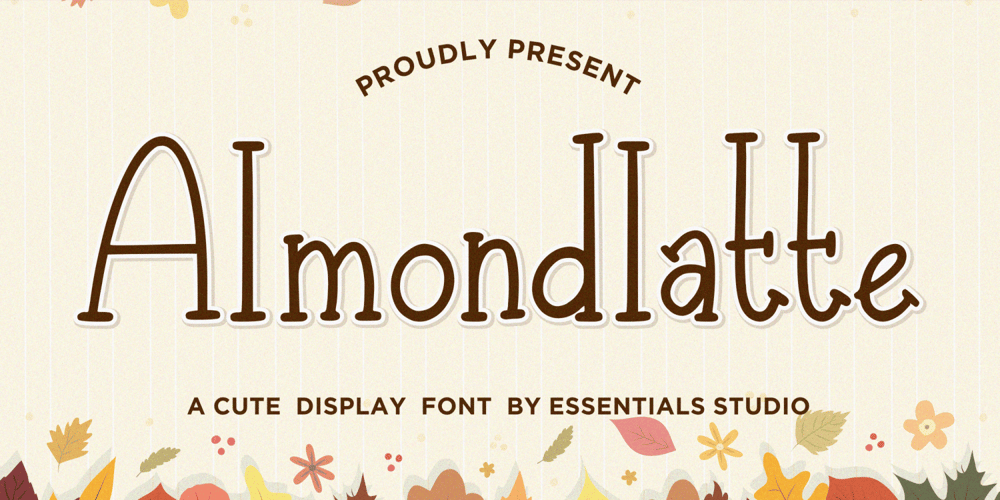
Almondlatte Font Family was designed by Sulthan Mada Maulana Tsani and published by Essentials Studio. Almondlatte contains 1 styles and family package options. Almondlatte Is a Cute Display FontAlmondlatte is perfect for product packaging, branding project, megazine, social media, wedding, or just used to express words above the background.